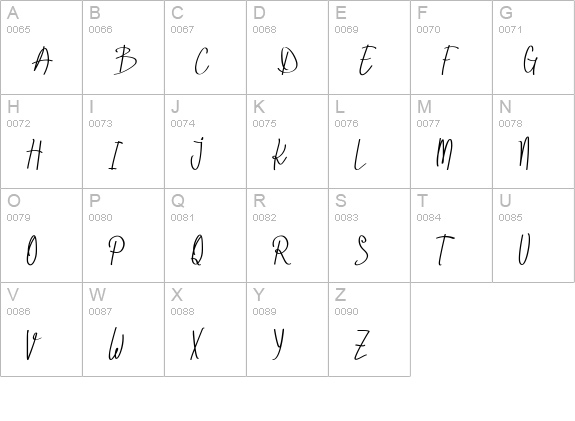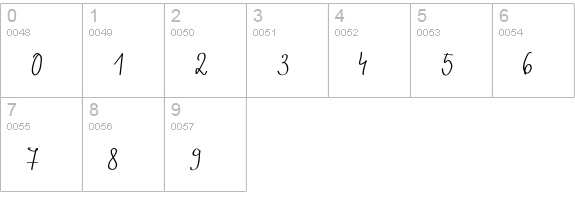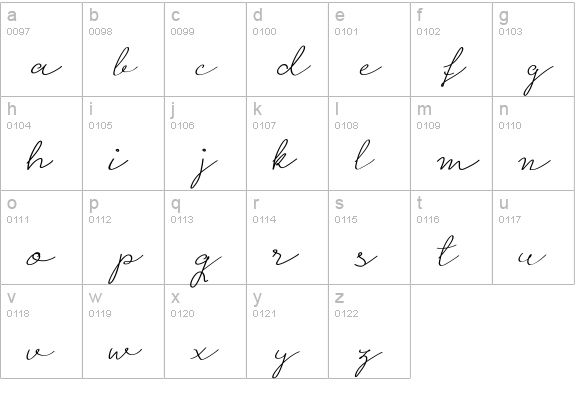
Under the mistletoe font is a charming and festive typeface perfect for adding a touch of holiday cheer to your designs. With its whimsical and playful style, this font is sure to bring a smile to anyone's face. The intricate details and elegant curves make it a standout choice for Christmas-themed projects, greeting cards, invitations, and more.